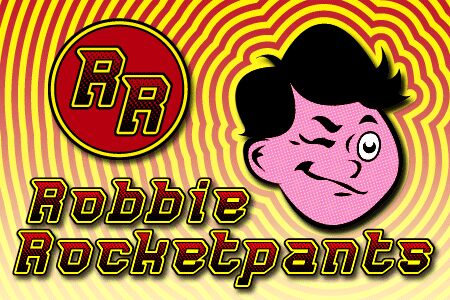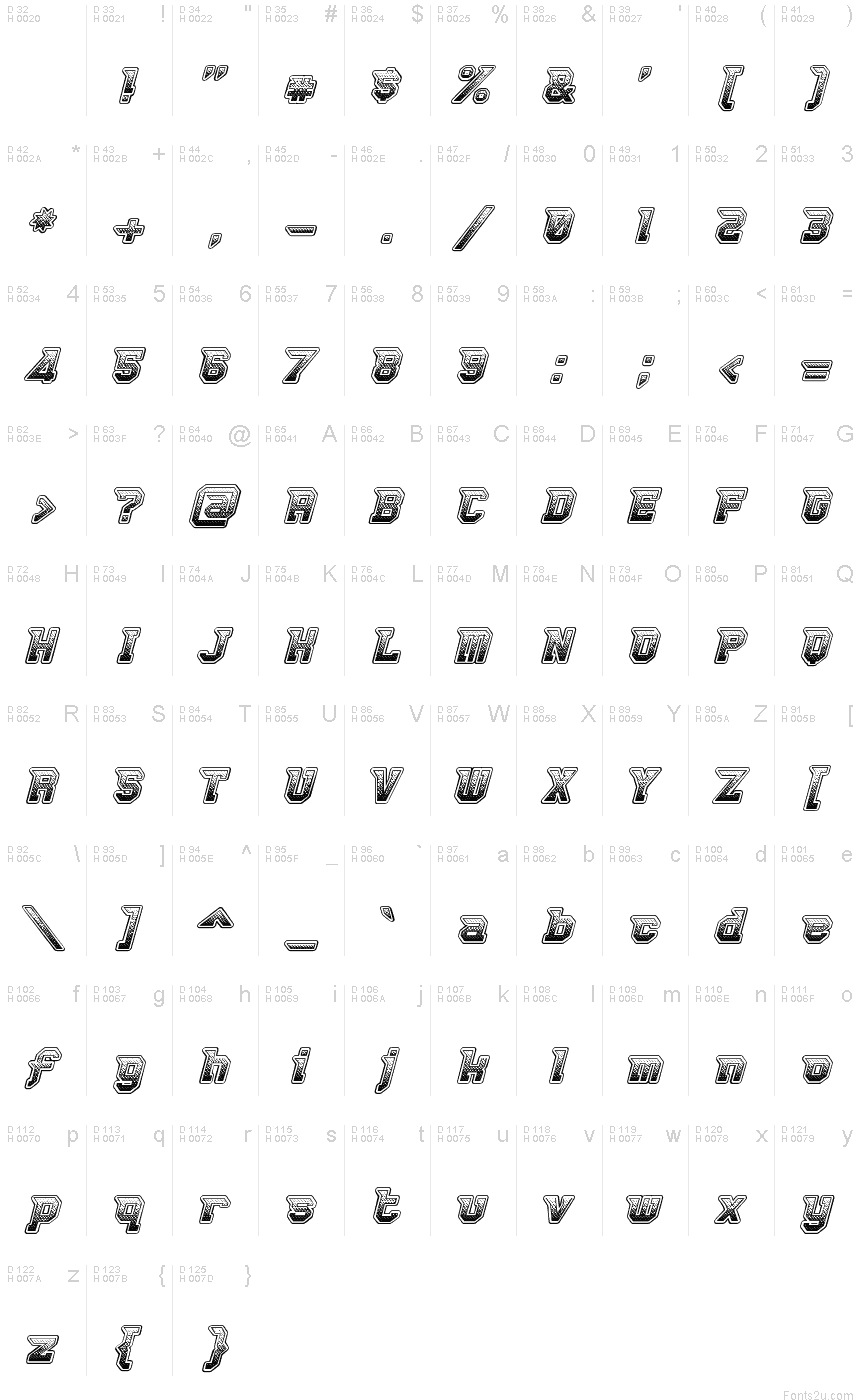
Robbie Rocketpants
Robbie Rocketpants, designed by Anfa in 2013, is a free futuristic decorative display font with the swagger of custom sports lettering. Broad, forward-leaning letters combine clipped corners, layered outlines, and open inline breaks. A halftone fade darkens toward the lower edges.
For creating an arcade-team emblem, the font supplies both a speedy silhouette and a built-in print texture, making it useful for game graphics and esports merchandise. The same mix of varsity structure and comic-book shading also fits youth event posters and action-themed packaging.
Anfa (2013)